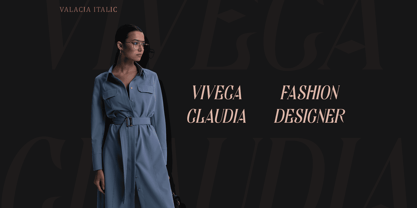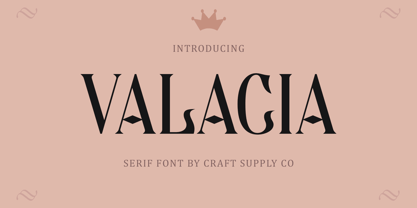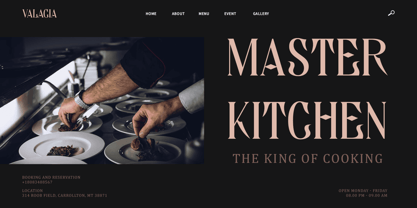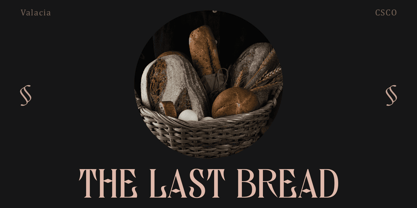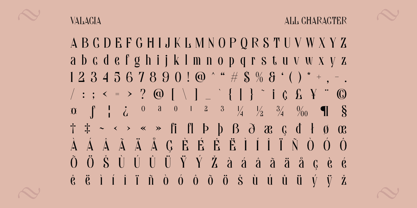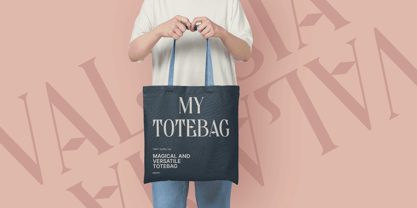
Valacia
by Craft Supply Co
The Valacia Font Family was designed by Trio Nazzar Saputra, Wahyu Hadi Yuana and published by Craft Supply Co. Valacia contains 2 styles and family package options. More about this family
Valacia – Unveiling Unique Display Serif Distinctive Design Elements Valacia showcases a plethora of unique components meticulously crafted for display content. Each glyph exudes character and charm, setting your text apart with its individuality. Tailored for Display Designed specifically for display purposes, Valacia excels in catching the eye and commanding attention. Its intricate details and bold strokes make it ideal for headlines, banners, and other prominent text. Versatility in Application Despite its focus on display, Valacia offers versatility in application. From website headers to advertising materials, it adapts seamlessly to various design contexts, ensuring consistency and coherence. Enhancing Visual Impact With Valacia, your content receives a boost in visual impact and readability. Its unique components not only attract attention but also enhance the overall aesthetic appeal of your designs. Display Serif Valacia emerges as the epitome of a versatile display serif font. Its unique design elements, tailored for prominence, ensure that your content stands out with elegance and distinction in any display setting. Explore the world of Valacia and elevate your design projects with its captivating charm.
Designers: Trio Nazzar Saputra, Wahyu Hadi Yuana
Foundry: Craft Supply Co